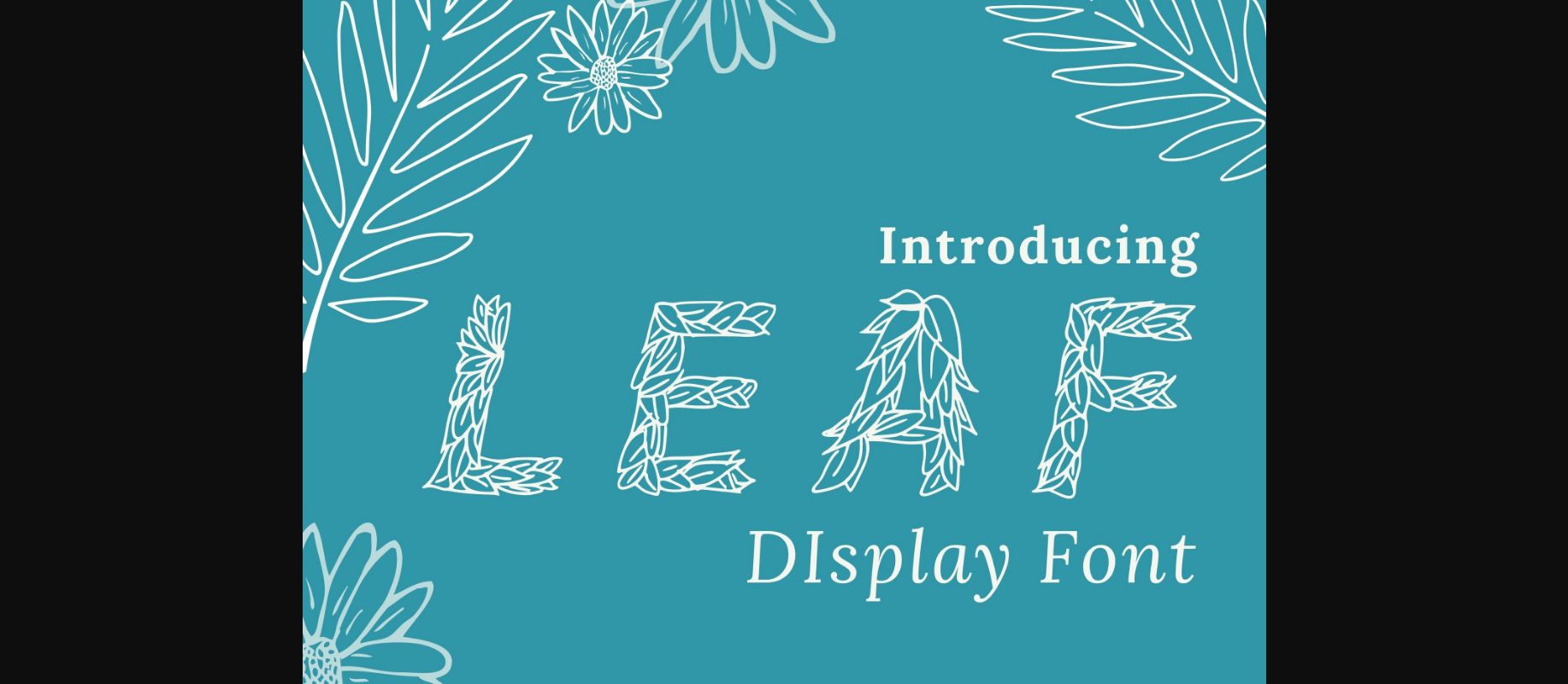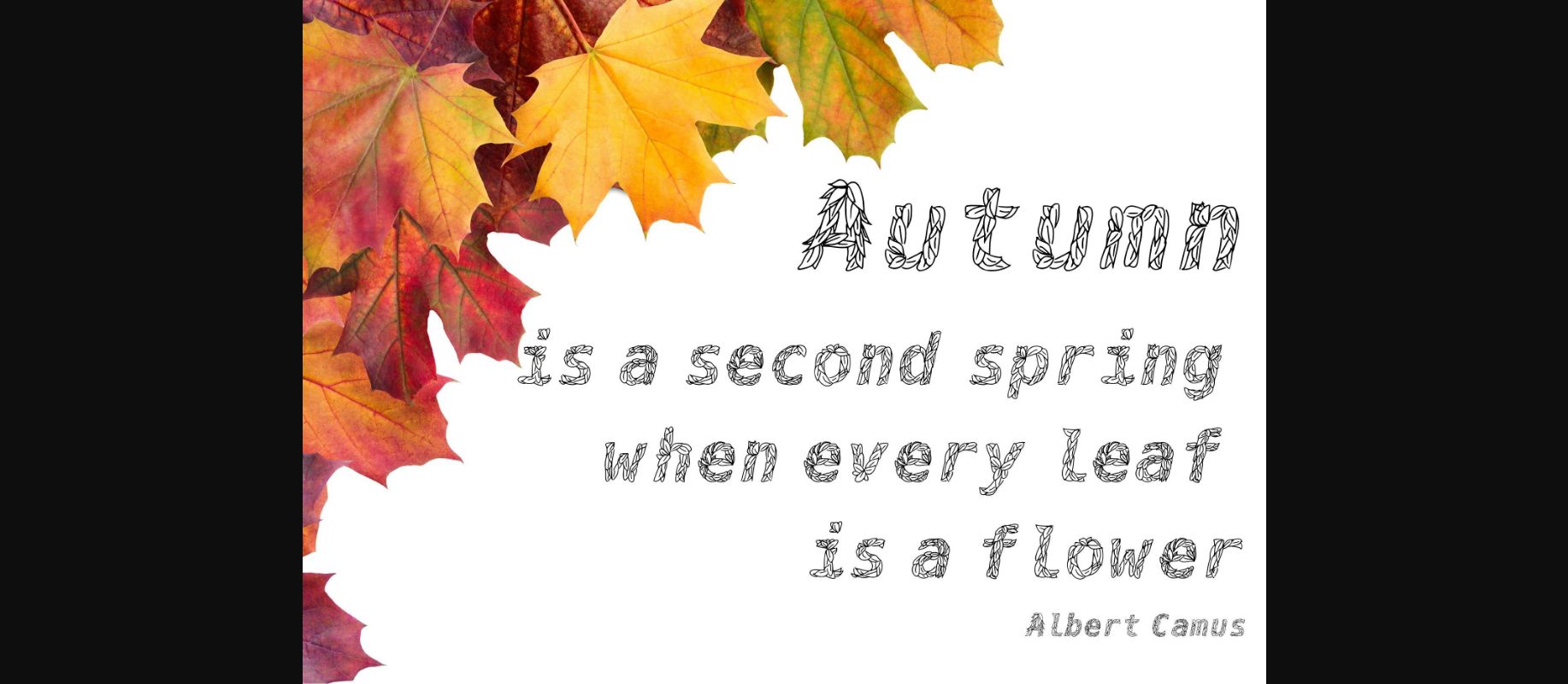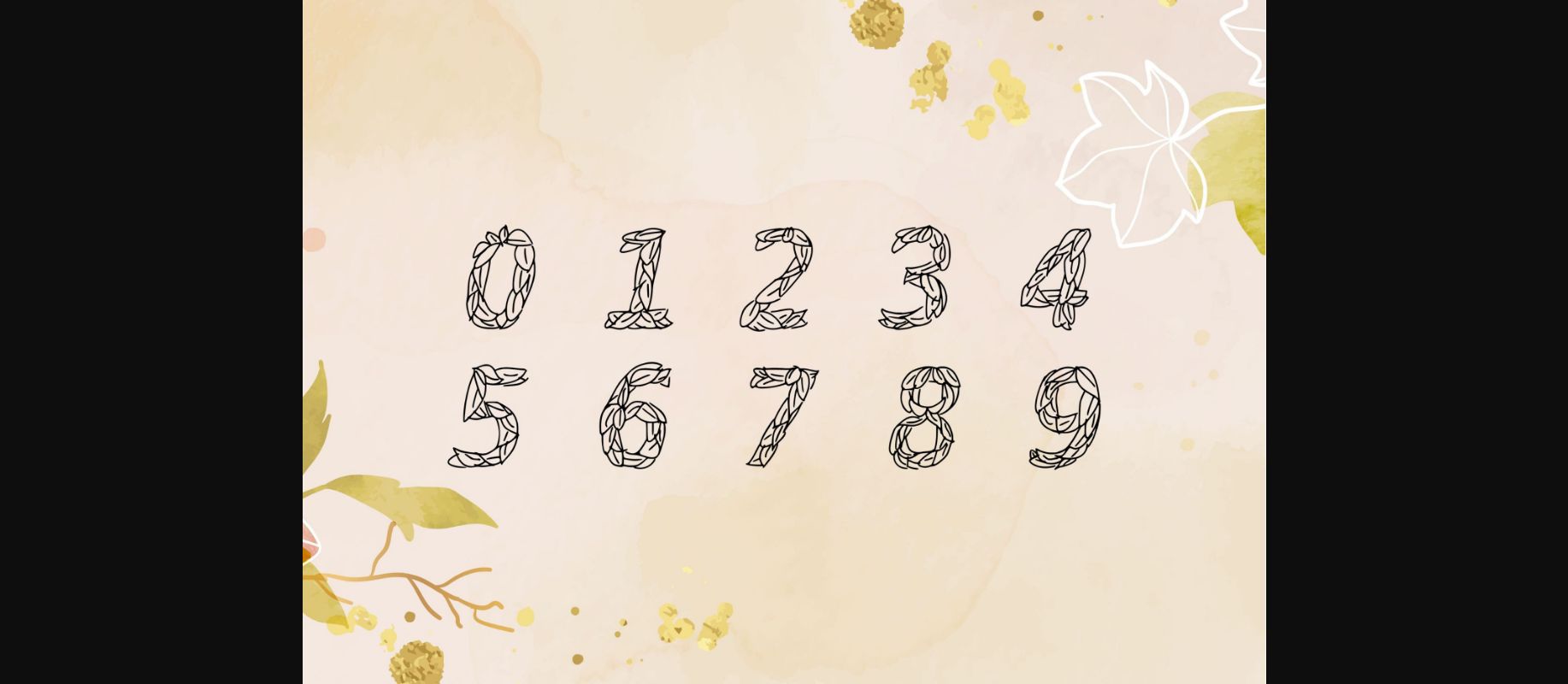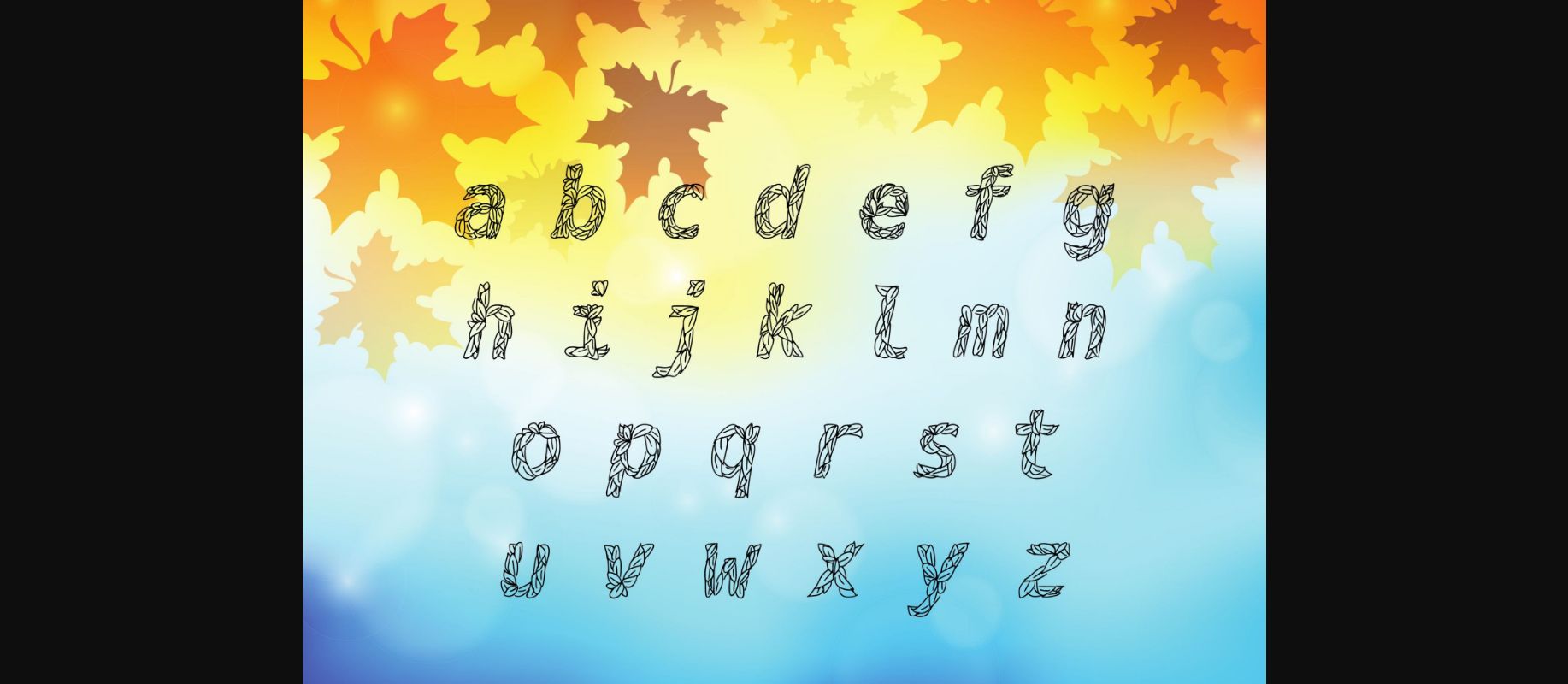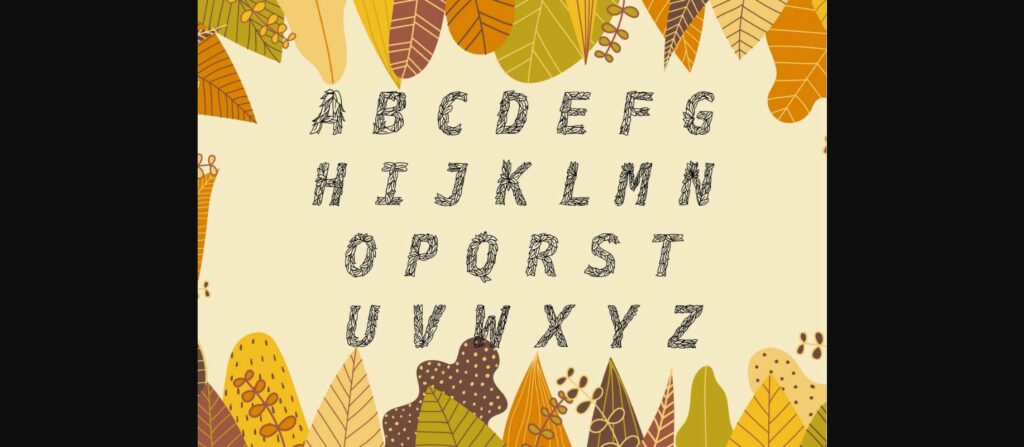
About Leaf Font
Leaf is a gorgeous decorative font with a lovely autumn vibe. No matter the topic, this font will be an incredible asset to your fonts’ library, as it has the potential to elevate any creation.